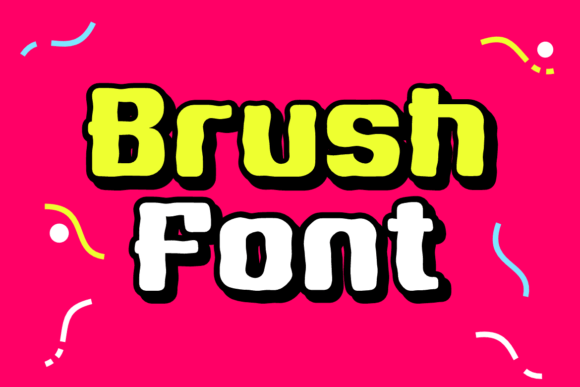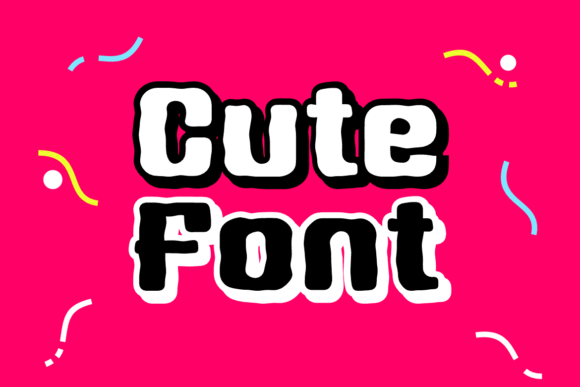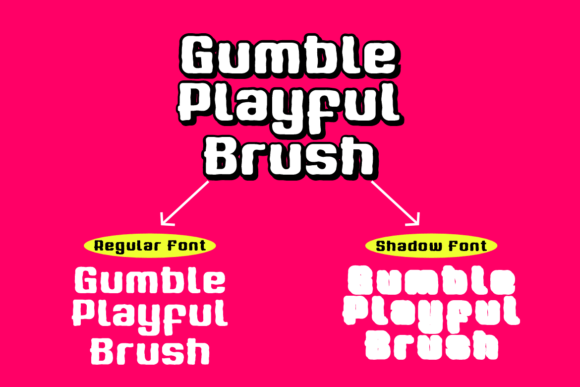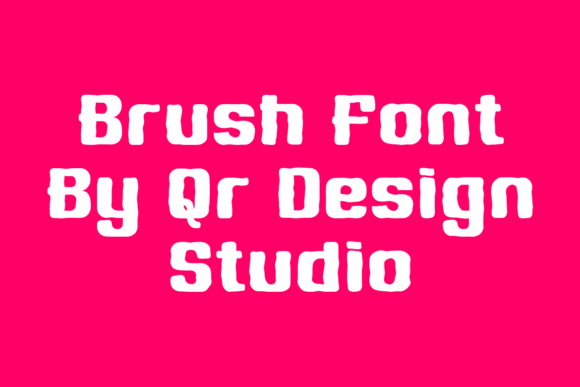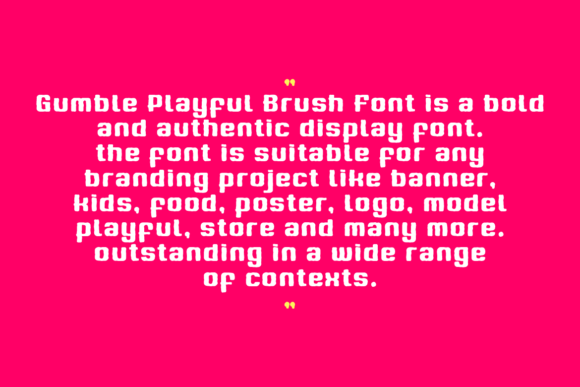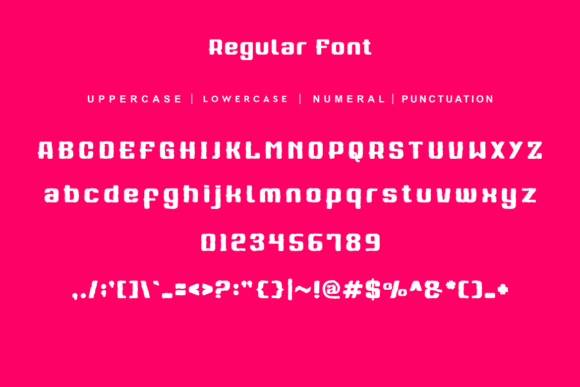
Introduction to Gumble Playful Brush Font
Remember the rush of excitement when you stumble upon that perfect font for your creative project? It’s like finding a missing puzzle piece that brings your entire design together. For designers, discovering a high-quality font like Gumble Playful Brush Font can be a game-changer. This bold and authentic display font is designed to stand out in a wide range of contexts, from kids’ branding to sports logos.
With its unique, playful feel, Gumble Playful Brush Font is an invaluable resource for designers looking to add a touch of whimsy to their designs. Whether you’re working on a project with a transparent background or need a font that can hold its own against bright colors, Gumble Playful Brush Font delivers. And the best part? It’s available for free download, making it an accessible design resource for creatives of all levels.
Key Features of Gumble Playful Brush Font
- High-quality design resource ideal for creative projects, offering a unique and playful touch.
- Available in a transparent background, making it easy to customize and integrate with various design elements.
- Designed to be used at various sizes, from 8pt to 200pt, and resolutions up to 300 DPI, ensuring versatility and scalability.
- Unique brush-style strokes and characters, allowing for a wide range of creative expressions and applications.
- Perfect for use in digital and print media, including logos, typography, and graphics, adding a playful and whimsical touch to any design project.
Honest Review: Gumble Playful Brush Font
As a designer, I’m always on the lookout for high-quality design resources to help bring my creative projects to life. The Gumble Playful Brush Font is one such resource that caught my attention, and I’m excited to share my honest review.
- High-quality brush strokes that add a playful touch to any design
- Transparent background, making it easy to layer with other design elements
- Limited character set, may not be suitable for extensive text-based designs
- Some users may find the brush strokes too stylized for certain design styles
Overall, I’m impressed with the Gumble Playful Brush Font. It’s a great addition to any designer’s toolkit, especially for creative projects that require a playful and whimsical touch. While it may have some limitations, it’s a great resource to have in your arsenal. With its high-quality design and transparent background, it’s easy to see why it’s a popular choice among designers.
Tips for Getting the Most Out of Gumble Playful Brush Font
Experiment with different font sizes, colors, and combinations to achieve the desired effect. Use the font in conjunction with other design elements to create a cohesive and visually appealing design.
Gumble Playful Brush Font is perfect for designing children’s books, greeting cards, or any other project that requires a playful and whimsical touch. You can also use it to create custom graphics, logos, or illustrations for your personal or professional brand.